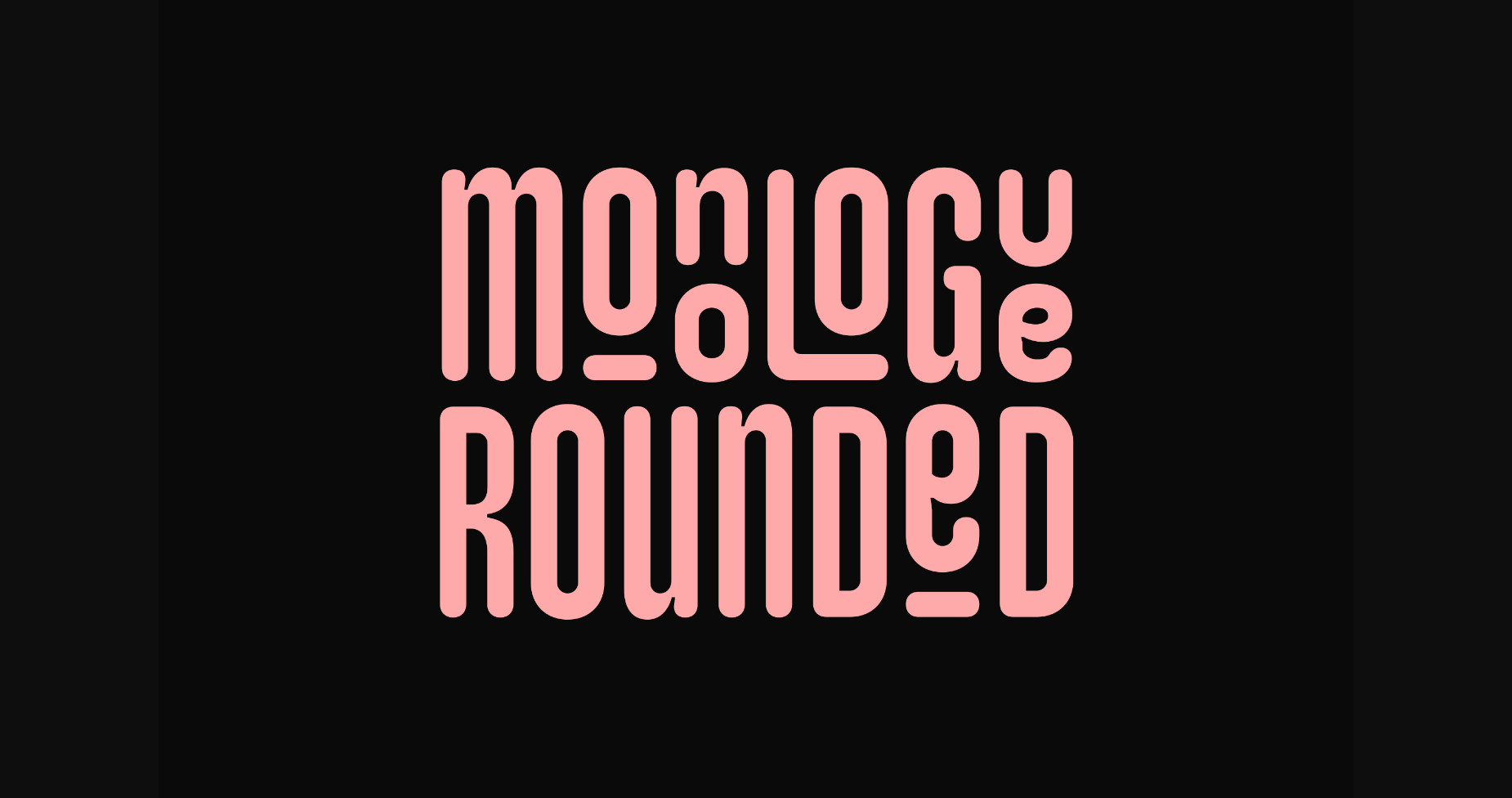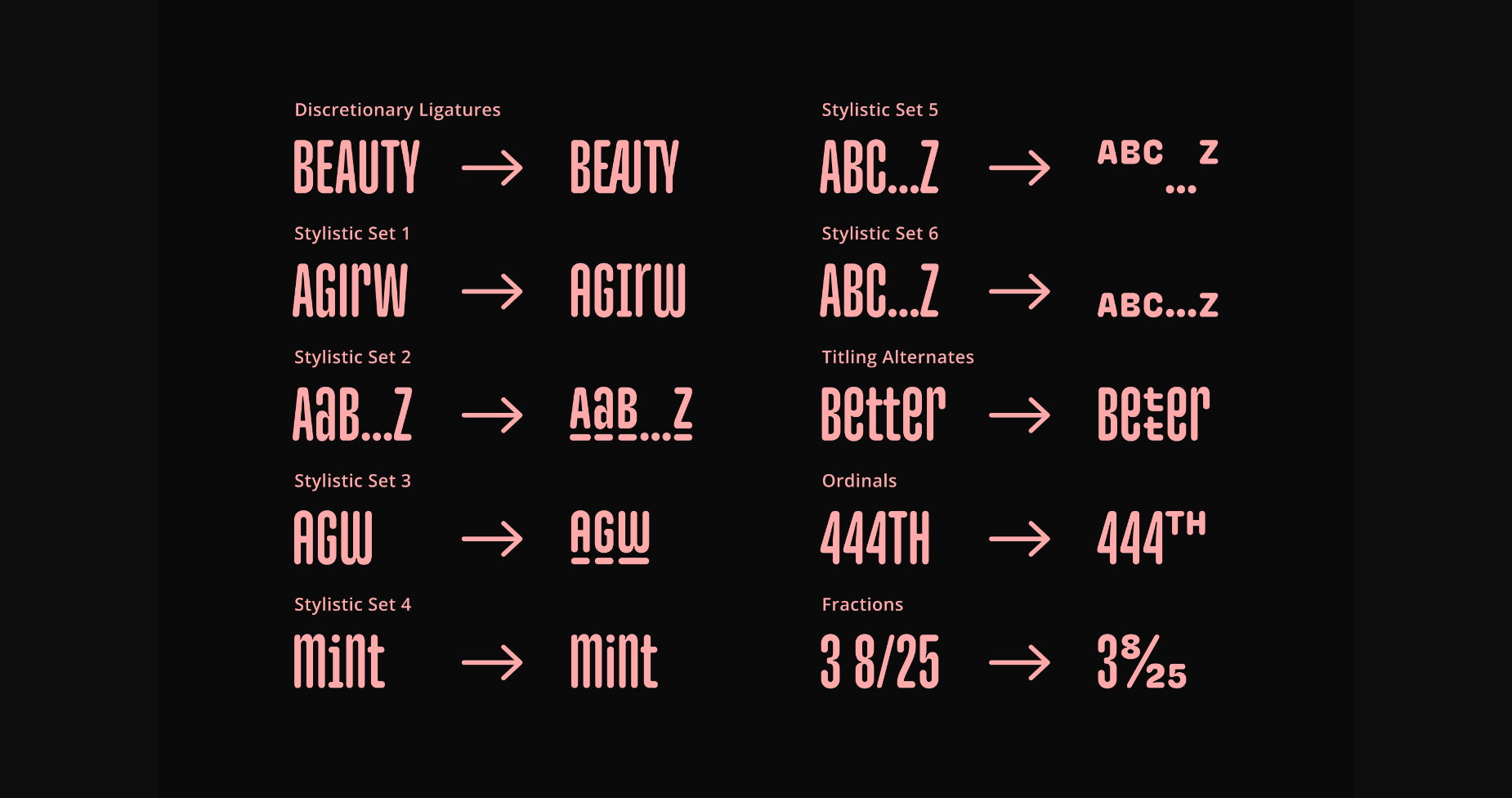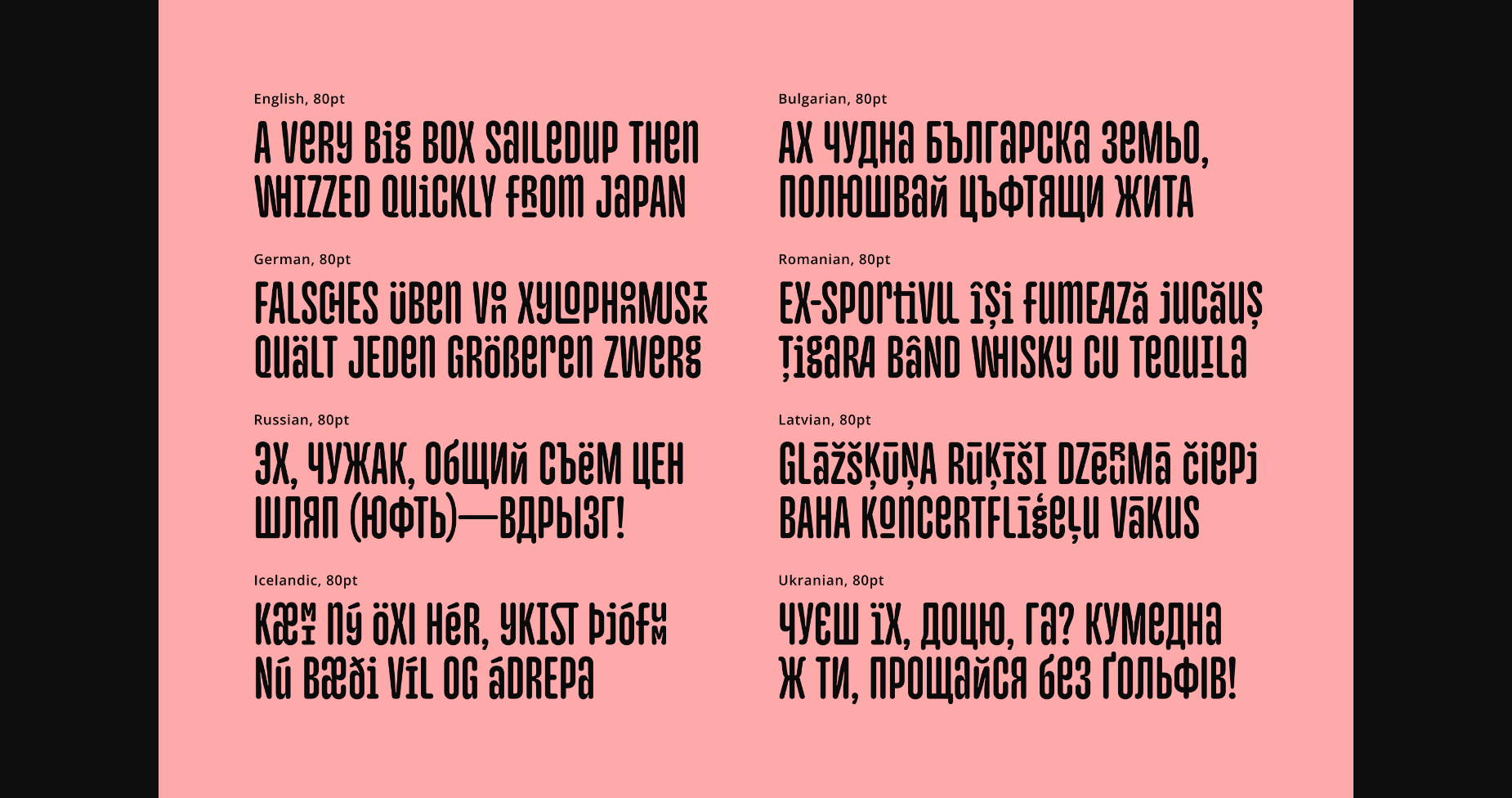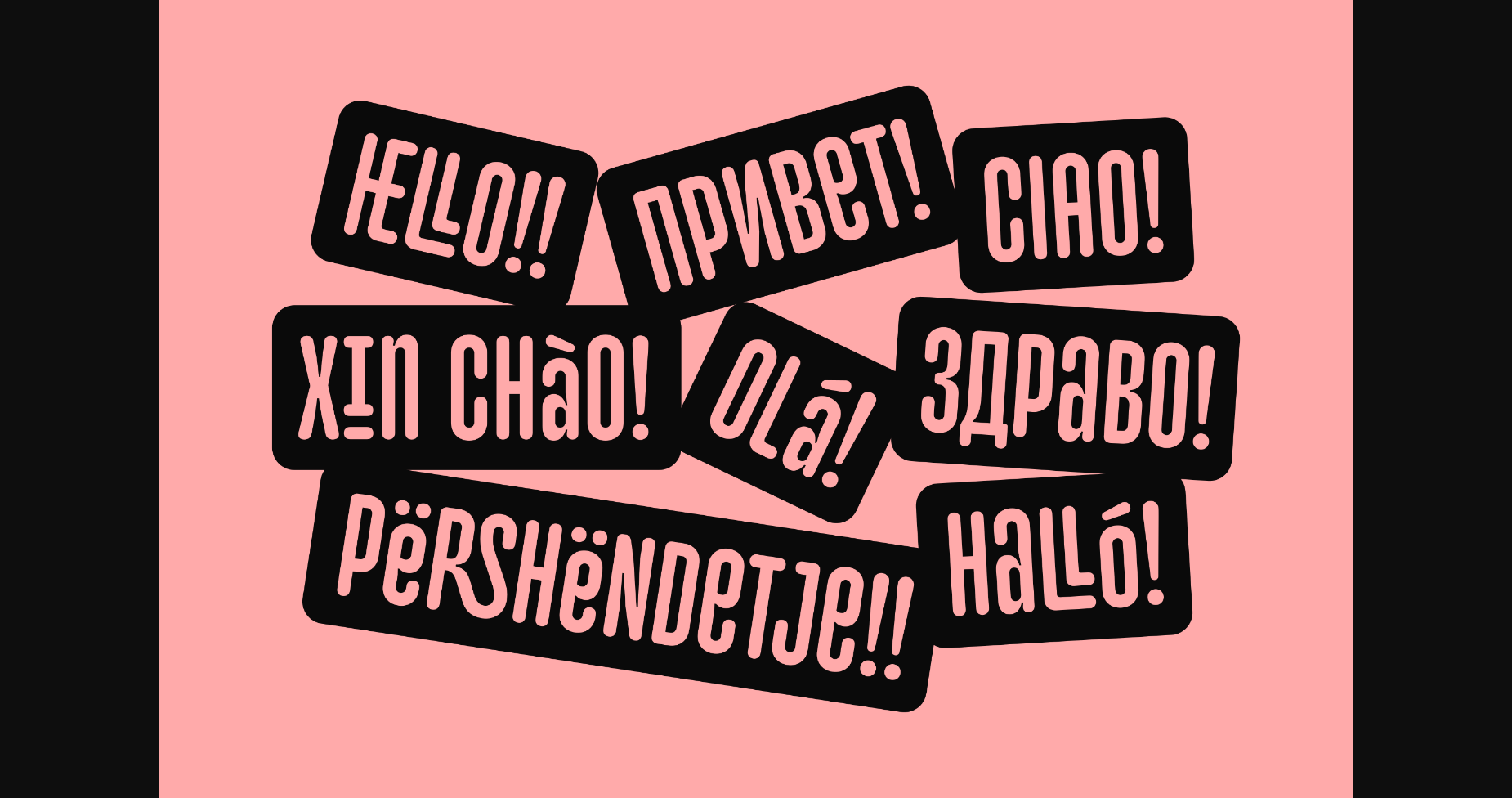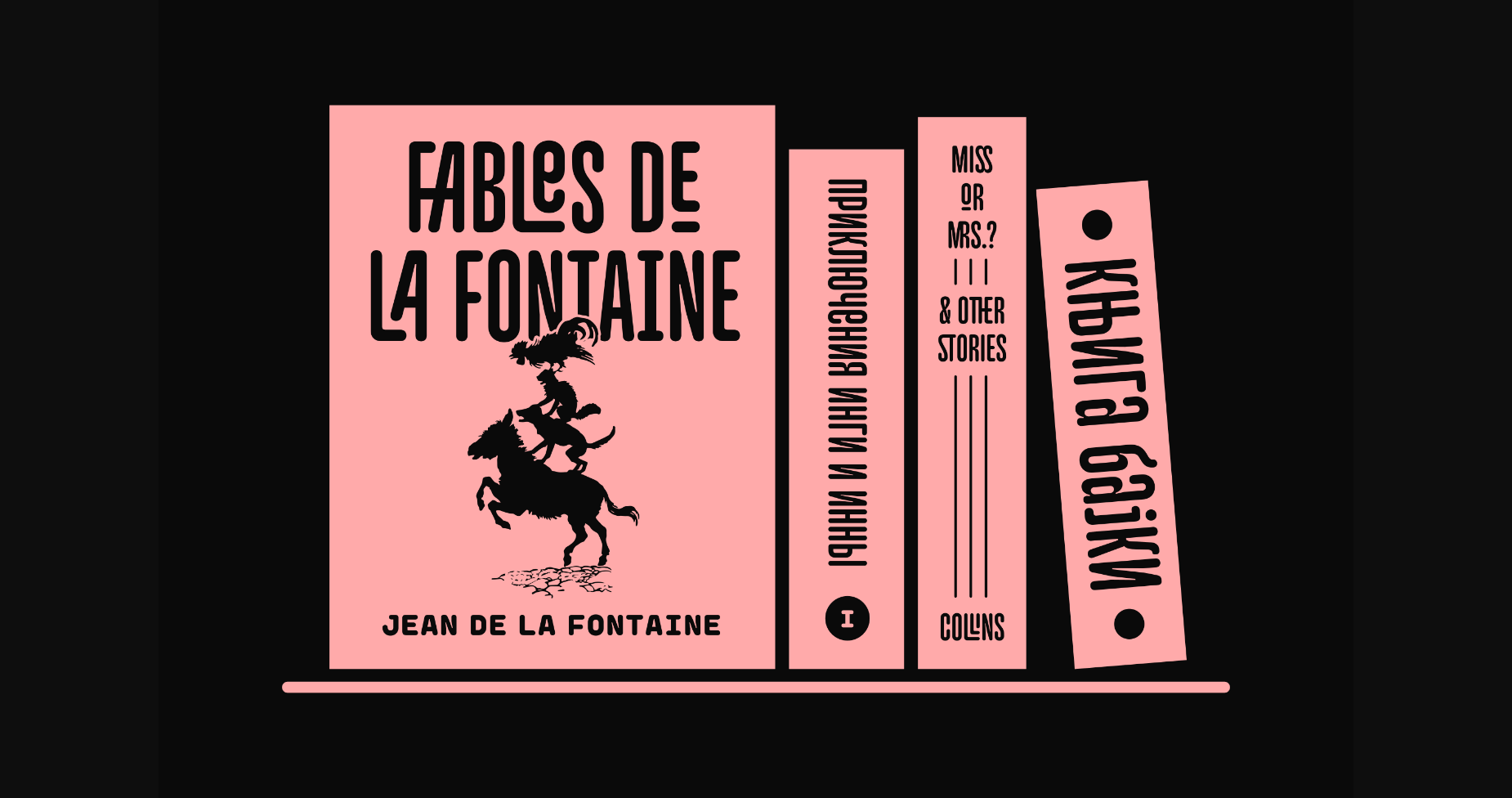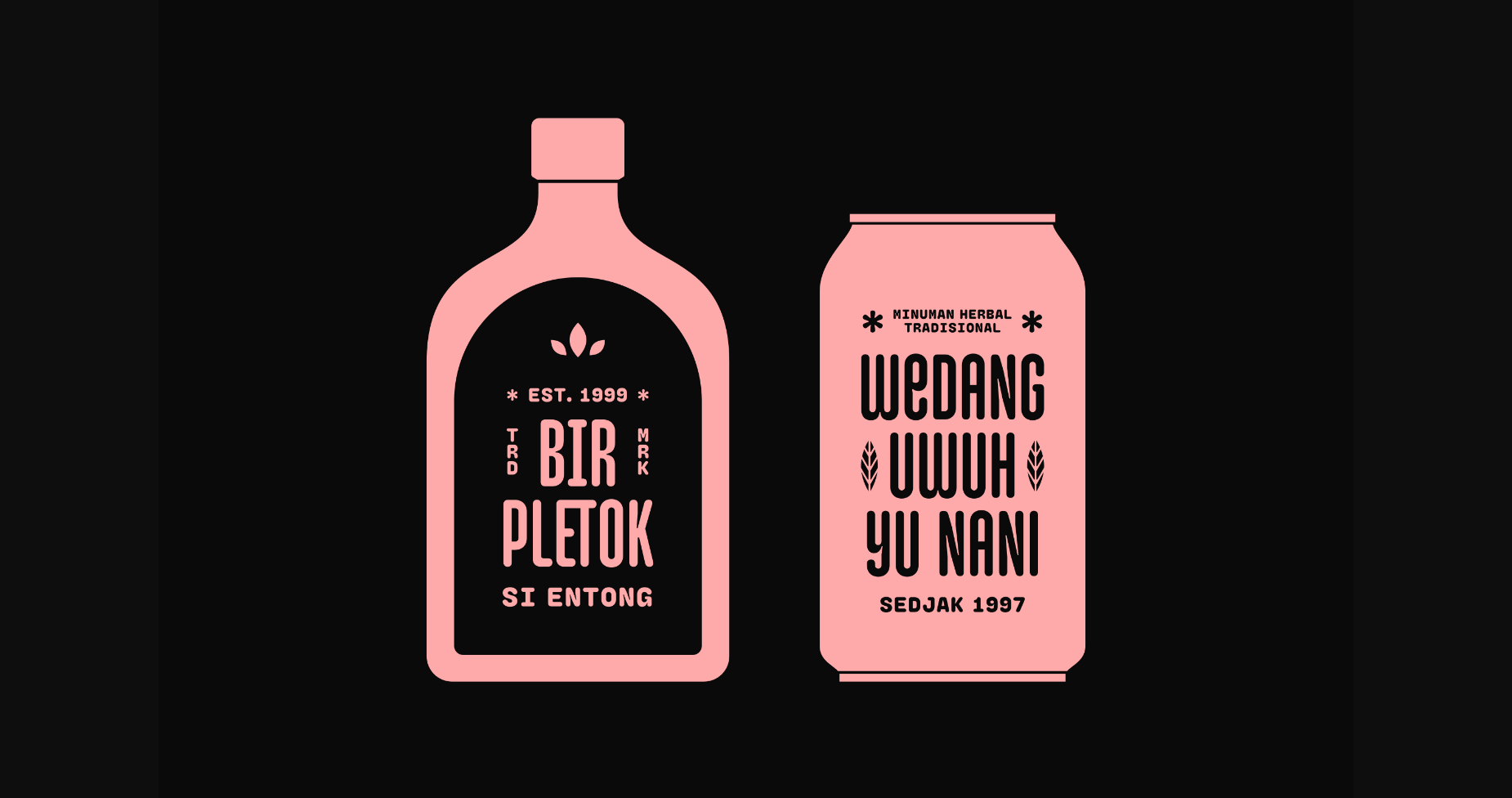
Monologue Rounded Font
About Monologue Rounded Font
Monologue Rounded is a cool and vintage styled sans serif font. No matter the topic, this font will be an incredible asset to your fonts’ library, as it has the potential to elevate any creation.